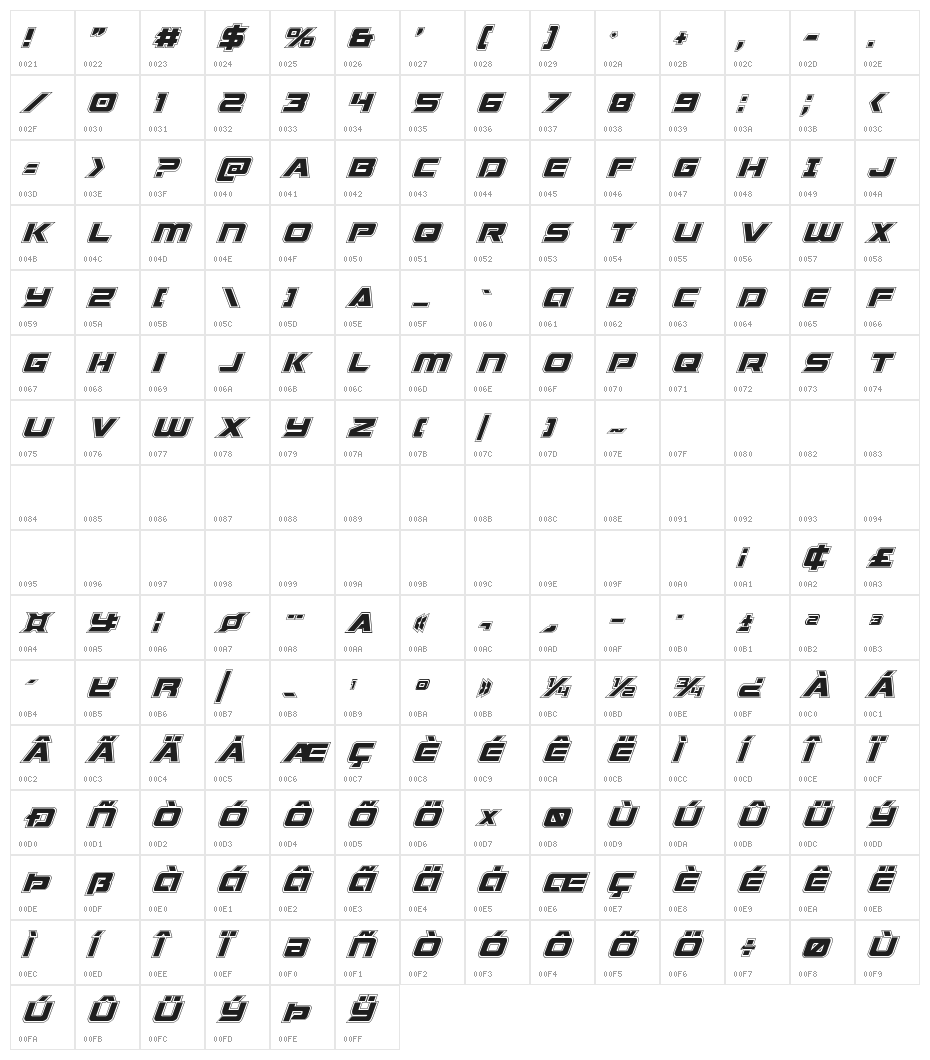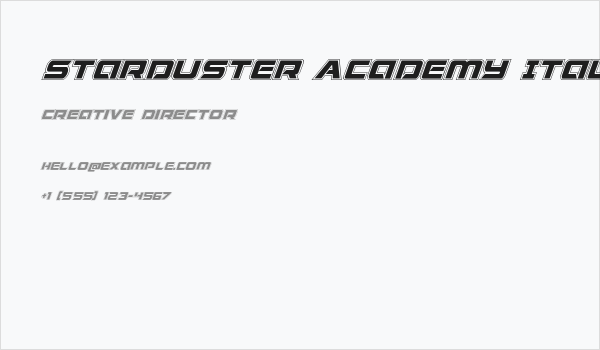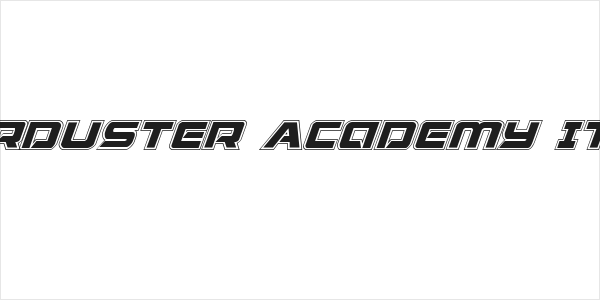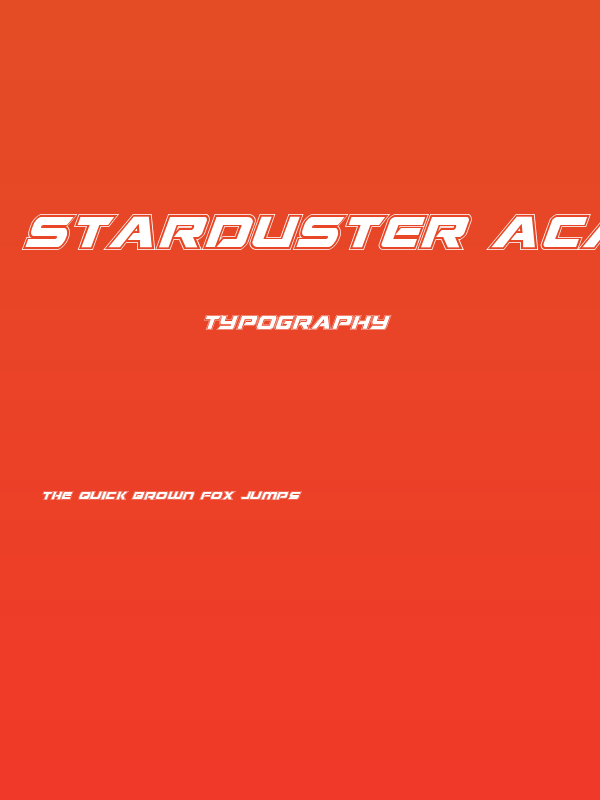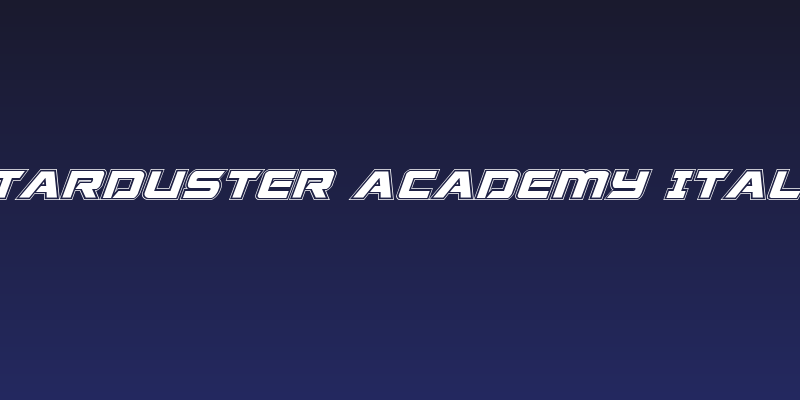
Starduster Academy Italic Font
Starduster Academy Italic Description
This font features a bold, italicized style with a futuristic and dynamic appearance. The characters are designed with a strong geometric influence, incorporating sharp angles and clean lines. The font includes a double outline effect, adding depth and a three-dimensional feel to the text. The uppercase and lowercase letters maintain a consistent style, while the numerals and special characters complement the overall design. This font is ideal for projects that require a modern and impactful look, such as technology-related branding or sci-fi themed graphics.
Proposed ProjectsIdeal for technology branding, sci-fi graphics, video game titles, and dynamic posters.